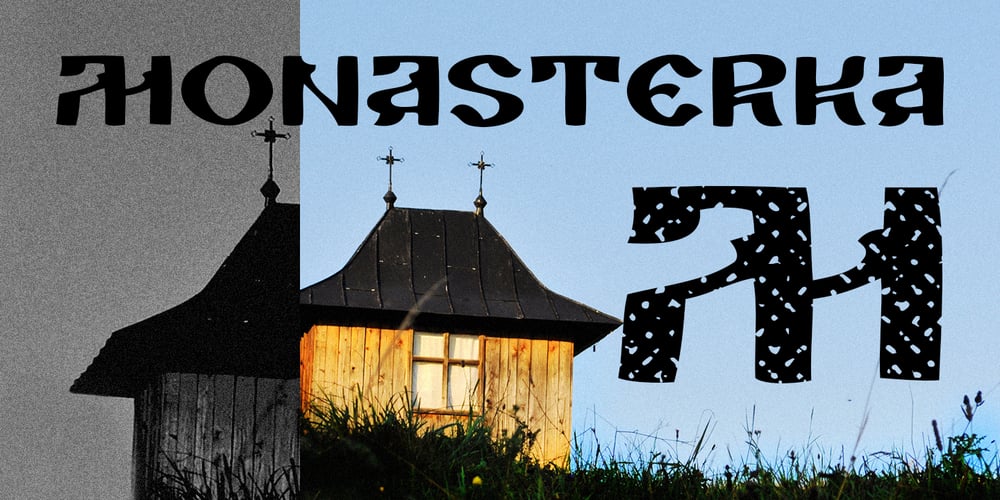
Monasterka
Monasterka font
Monasterka Font Family was designed by Bogdan Balatchi and published by DePlictis Types. Monasterka contains 2 styles and family package options. Monasterka refers to the preservation of ancient traditions and the right orthodox faith. It is a bold, archaic typeface in two styles especially designed for printing purposes. It is a powerfull, expressive typeface inspired by old cyrillic writing and may do a great job for brochures and publications designs that has to do with religious or historical thematic, mostly as headlines and titles with great impact and personality. This family has an extended language coverage for many languages including latin, cyrillic and greek alphabets and comes in two styles.